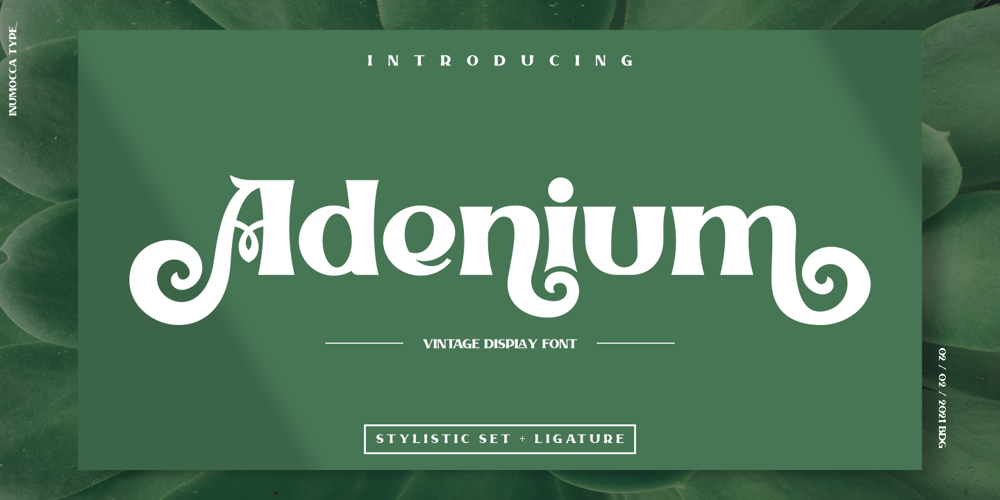
Adenium Font Family was designed by Inu Mocca and published by Inumocca. Adenium contains 2 styles and family package options. Adenium Typeface inspired by the Shape of the Adenium Tree, Vintage Display typeface , Classic Taste with some Curly and Curved its Great flexible typeface.unique Stylictic Set and Beautiful Ligature, Really playful typeface to covering your Project, like Lettering, Website Interface, Bookcover or Book Content, Magazine cover, Branding, Poster, wedding invitations, Quotes Lettering, Logos, and more your project design.- Unique glyphs- Multilingual Characters- UPPERCASE- Lowercase- Numeric- Symbol- Punctuation Character- Ligature- SS01, SS02, SS03, SS04inumoccatype Studio